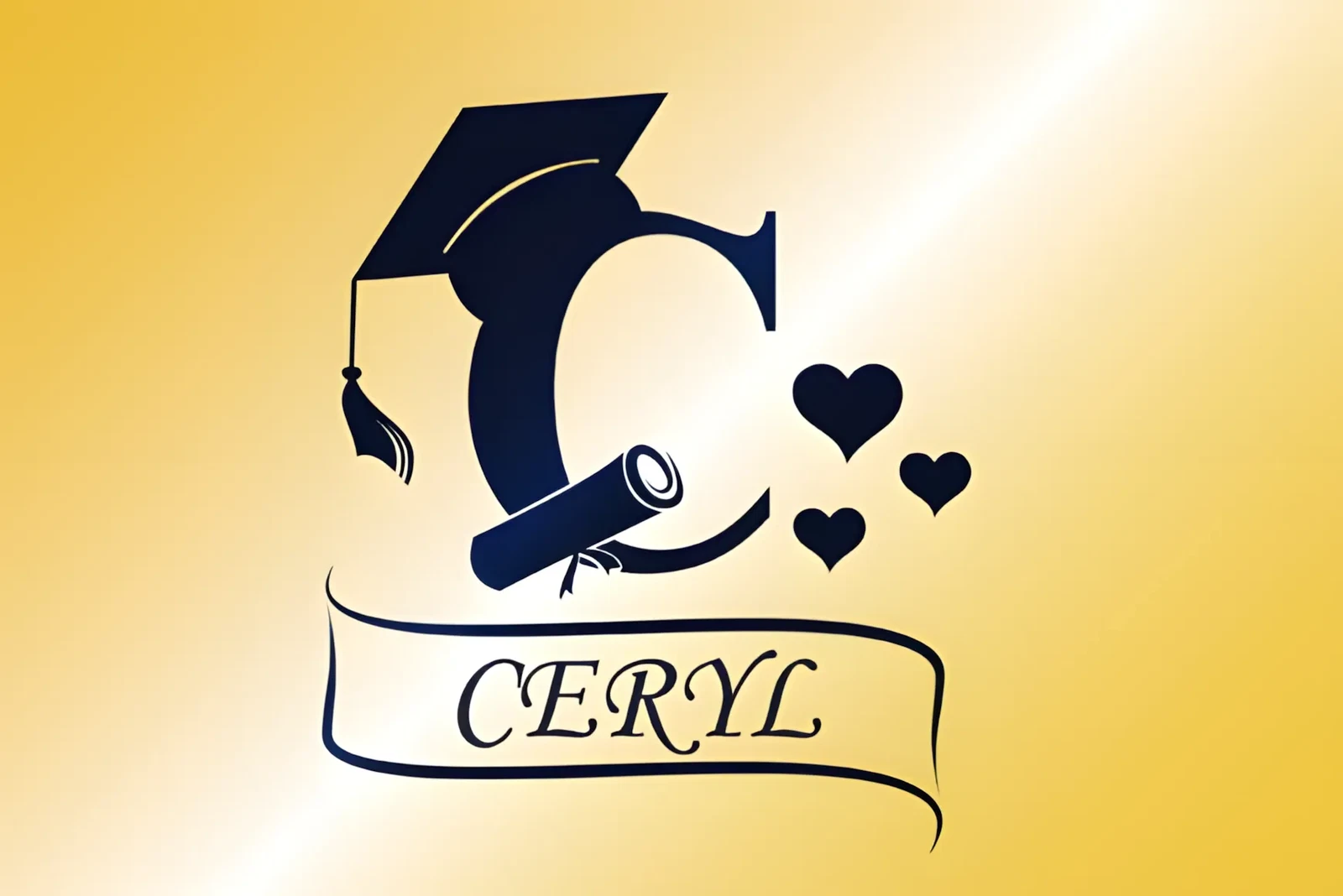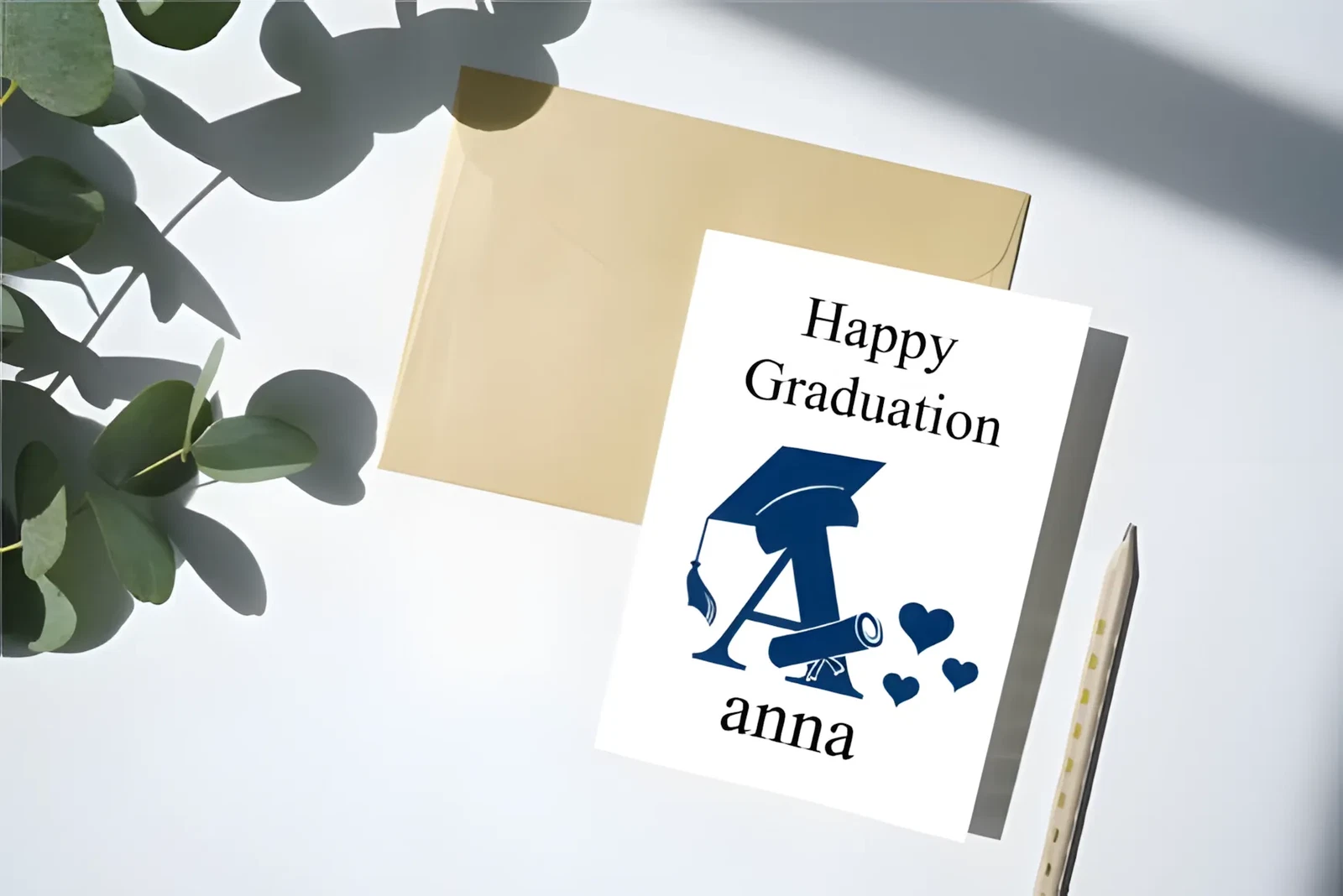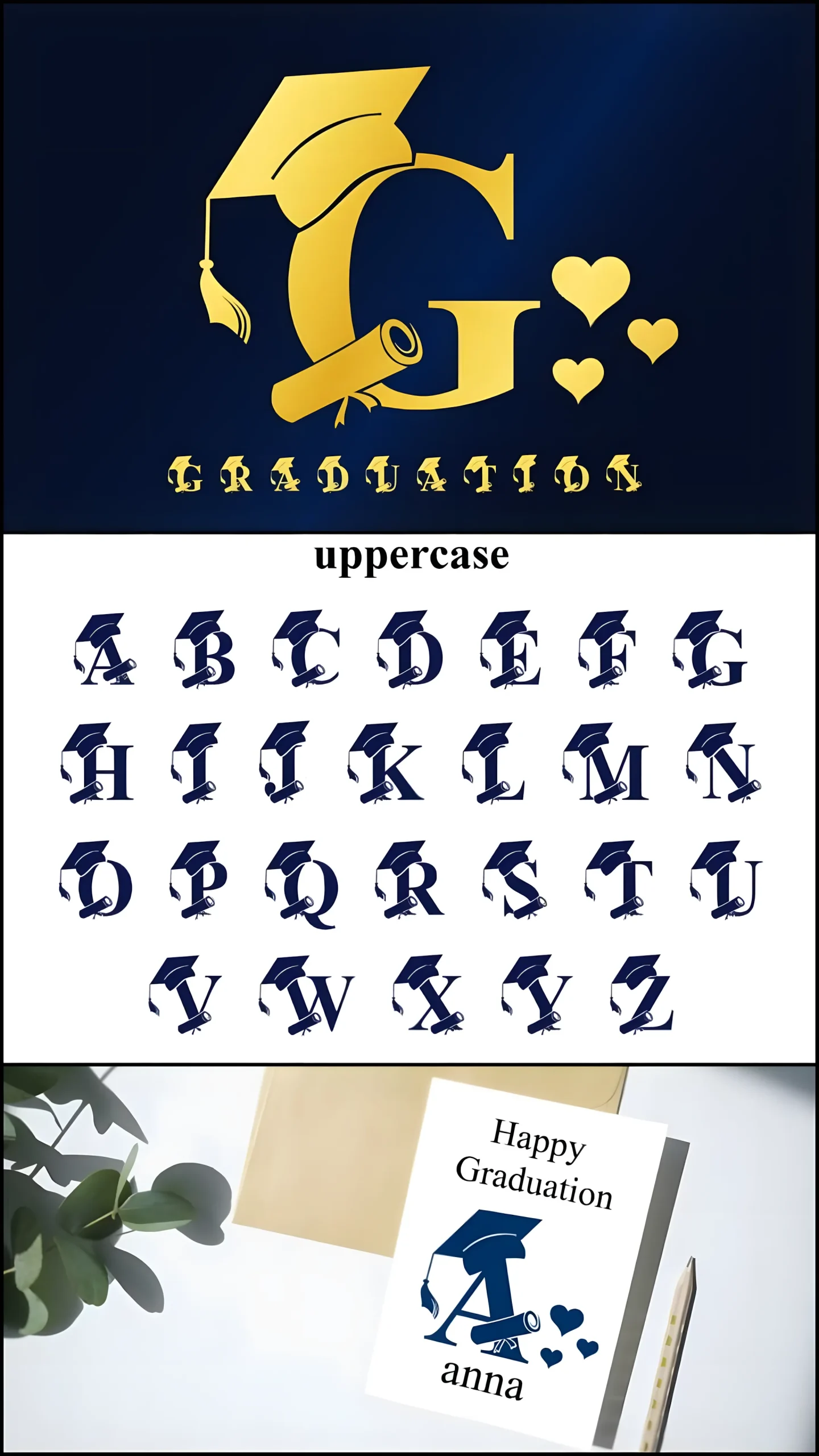
Typography plays a key role in celebrating milestones and achievements, especially when it comes to graduation events. The right font can add elegance, formality, and emotional value to a design, turning simple text into a meaningful visual statement. Graduation Monogram 4 Font is a decorative display typeface created specifically for graduation-themed projects and refined celebratory design.
This font is widely used in graduation invitations, certificates, apparel, event branding, and custom merchandise. Its decorative yet balanced style makes it suitable for both formal academic settings and modern celebratory designs.
What Is Graduation Monogram 4 Font?
Graduation Monogram 4 Font is a decorative graduation-style typeface designed to highlight achievement, pride, and celebration. It combines classic monogram inspiration with elegant decorative details, resulting in a font that feels traditional, polished, and timeless.
As a display font, it is best suited for titles, names, initials, and short text elements rather than long paragraphs. Its purpose is to add visual importance and sophistication to graduation-related designs.
Design Style and Visual Characteristics
The visual identity of Graduation Monogram 4 Font is defined by elegance and structure. The letterforms feature smooth curves, decorative accents, and balanced proportions that create a refined appearance without looking overly ornate.
This font works especially well in clean layouts where typography plays a central role. Whether used in minimalist designs or more decorative compositions, Graduation Monogram 4 Font maintains clarity and visual authority.
Its monogram-inspired style makes it ideal for highlighting names, class years, initials, and key messages related to graduation and academic success.
Common Uses for Graduation Monogram 4 Font
Graduation Invitations and Announcements
Graduation Monogram 4 Font is a popular choice for graduation invitations and announcements. It adds a formal and celebratory tone that reflects the importance of the occasion.
The font works well for:
- Graduation party invitations
- Commencement announcements
- Save-the-date cards
- Digital graduation invites
Its elegant design helps invitations feel special and memorable.
Certificates, Diplomas, and Programs
Formal documents require typography that communicates credibility and achievement. Graduation Monogram 4 Font enhances:
- Certificates of completion
- Diploma covers
- Graduation programs
- Academic awards
The decorative details add distinction while maintaining a professional and academic appearance.
Apparel and Custom Merchandise
Graduation celebrations often include custom apparel and keepsakes. Graduation Monogram 4 Font works beautifully on:
- Graduation t-shirts and hoodies
- Caps and accessories
- Tote bags and gifts
- Personalized keepsakes
Its monogram style is especially effective for displaying class years, initials, and school names.
Event Branding and Signage
For graduation ceremonies and related events, consistent visual branding is essential. Graduation Monogram 4 Font can be used in:
- Event logos
- Ceremony signage
- Banners and backdrops
- Social media branding
The font’s elegant appearance reinforces the importance and formality of graduation events.
Why Choose Graduation Monogram 4 Font?
Graduation Monogram 4 Font is chosen for its ability to combine tradition with decorative style. It offers:
- A refined graduation-focused aesthetic
- Decorative monogram inspiration
- Strong readability for display use
- Versatility across print and digital formats
- A professional look suitable for formal occasions
This makes it a reliable option for designers, educators, event planners, and businesses working with graduation-related projects.
Graduation Monogram 4 Font is an elegant decorative typeface designed to honor academic achievement and celebration. Its refined letterforms and monogram-inspired style make it ideal for graduation invitations, certificates, apparel, event branding, and custom merchandise.
For designers and creators seeking a graduation-focused font that communicates pride, tradition, and elegance, Graduation Monogram 4 Font is a strong and versatile choice.